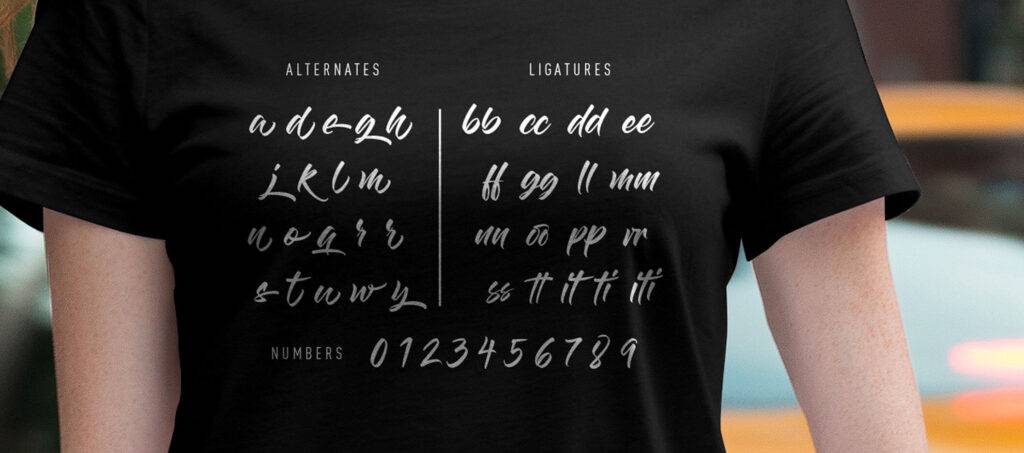
About The Breakdown Font
The Breakdown Font is Here! A Script, calligraphy font. StereoType created it and distributes it. The Breakdown is the smoothed-out version of Sean Delloro’s Gloss & Bloom. A style that is both fresh and current. It’s a versatile typeface that looks great in both large and small sizes. This lovely font includes uppercase, lowercase, numeric, punctuation, and Symbol Regular. The Typeface additionally has multilingual support.
For all of your wacky endeavours, the Breakdown Font is a perfect choice. The font can be used to make one-of-a-kind graphics, covers, store names, and logos. It may also be used as a magnificent text overlay on any background image for branding projects, homeware designs, and product packaging. On any t-shirt design, the typography looks fantastic.